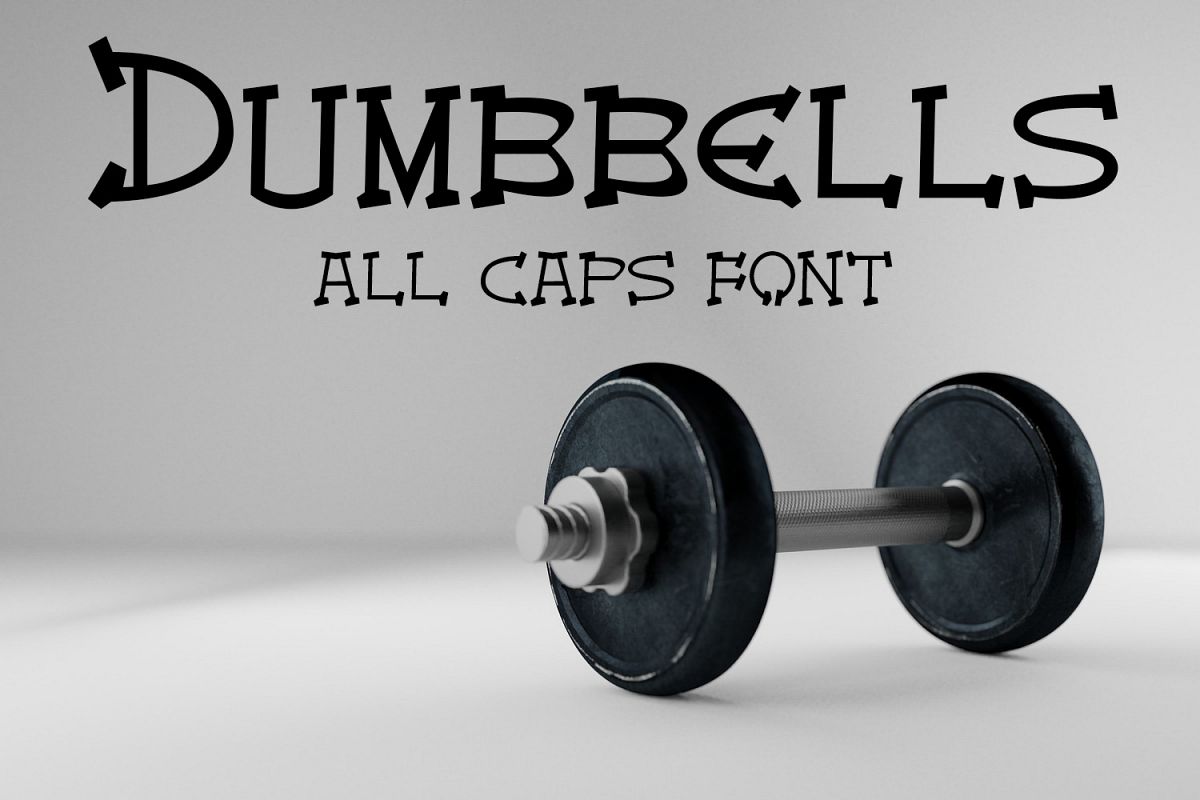
EP Dumbbells - All Caps Font
EPDumbbells
This font is perfect for wedding cards, quotes, headings, blogs, logos, invitations and more! Font includes all caps, punctuation, and numbers.
- 221 glyps (alphabets, numbers, signs, symbols, accents, euros)
- 500+ kerning pairs
- Support for European Languages (15+ languages)